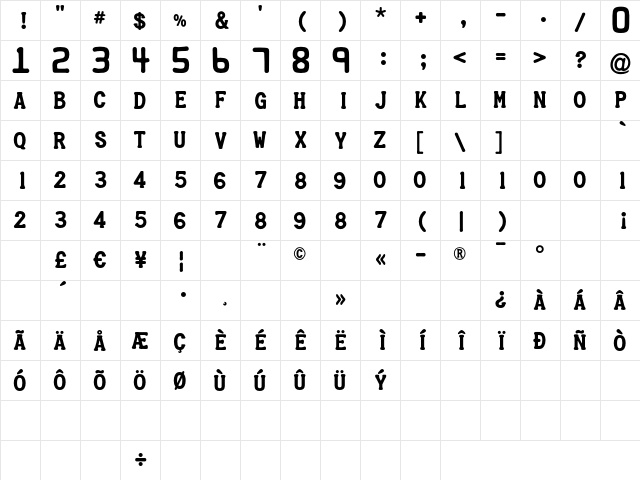
Credit Card Regular
| Copyright | Credit Card (version 1.01) by Keith Bates, 2009 . https://www.k-type.com .  . Caps Only font for simulating bank cards. Small 1 > 9 for dates at lowercase a > i. |
Design Context for Credit Card Typeface
Credit Card offers clean, dependable letterforms without strong stylistic allegiance, making it a practical choice for designers who need flexibility.